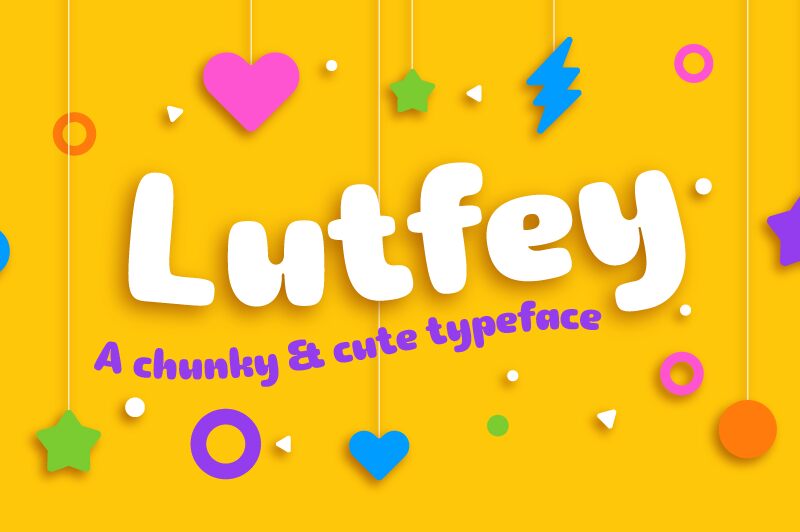
Lutfey Arabic DEMO Outline
Lutfey Arabic Outline font by Namela Type is a free display font with cartoon and outline styles. It is a bold rounded type suitable for doodle-like designs that need a casual, whimsical, friendly, and contemporary touch. Its letterings are an inspiration drawn from Arabic script and are perfect for artistic work that requires unusual typography.
Use Lutfey to create movie posters, logotypes for brands like hookah houses or fast food chains. Other uses include apparel designs, badges, album covers, children book covers, cartoon titles on YouTube videos or video games.